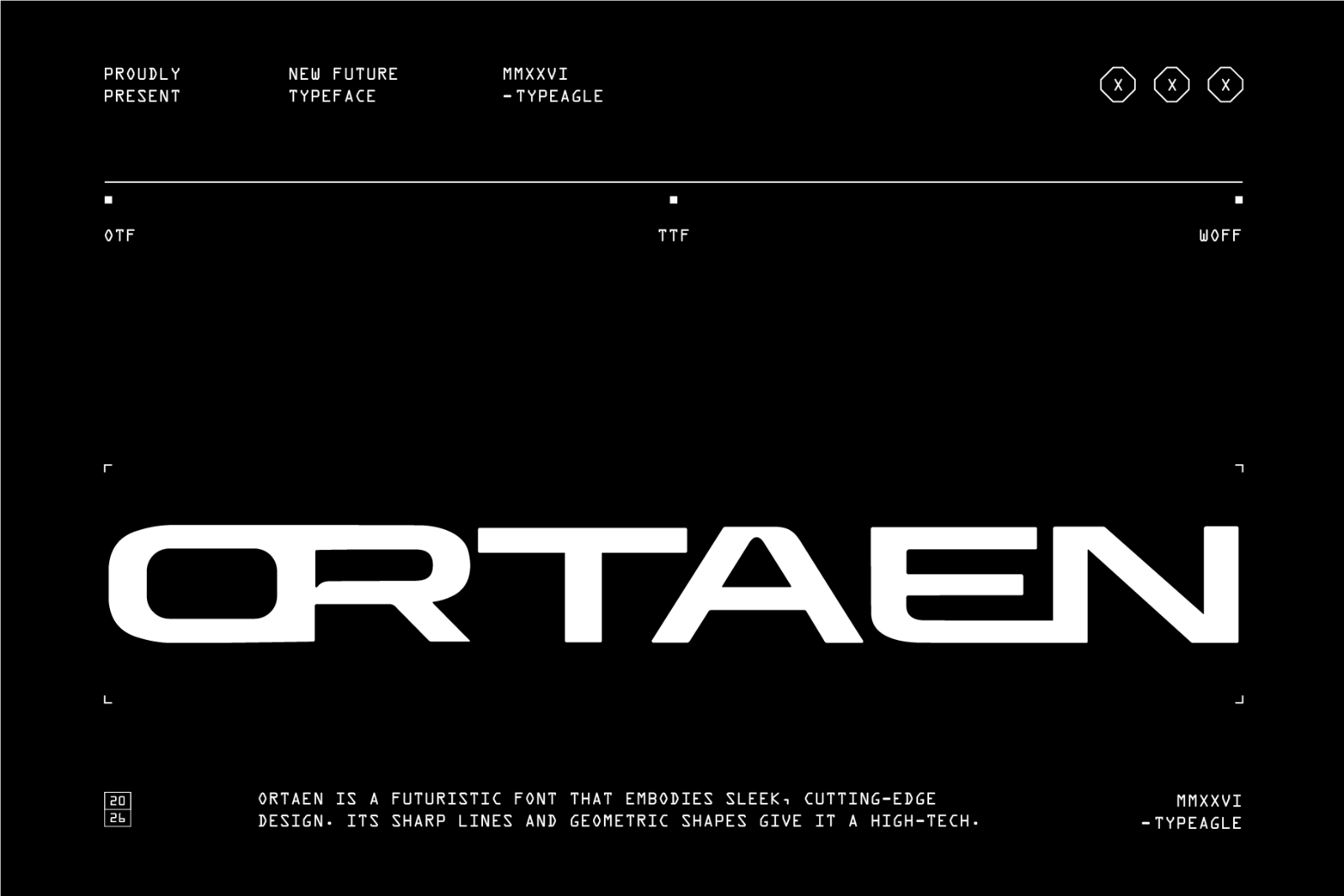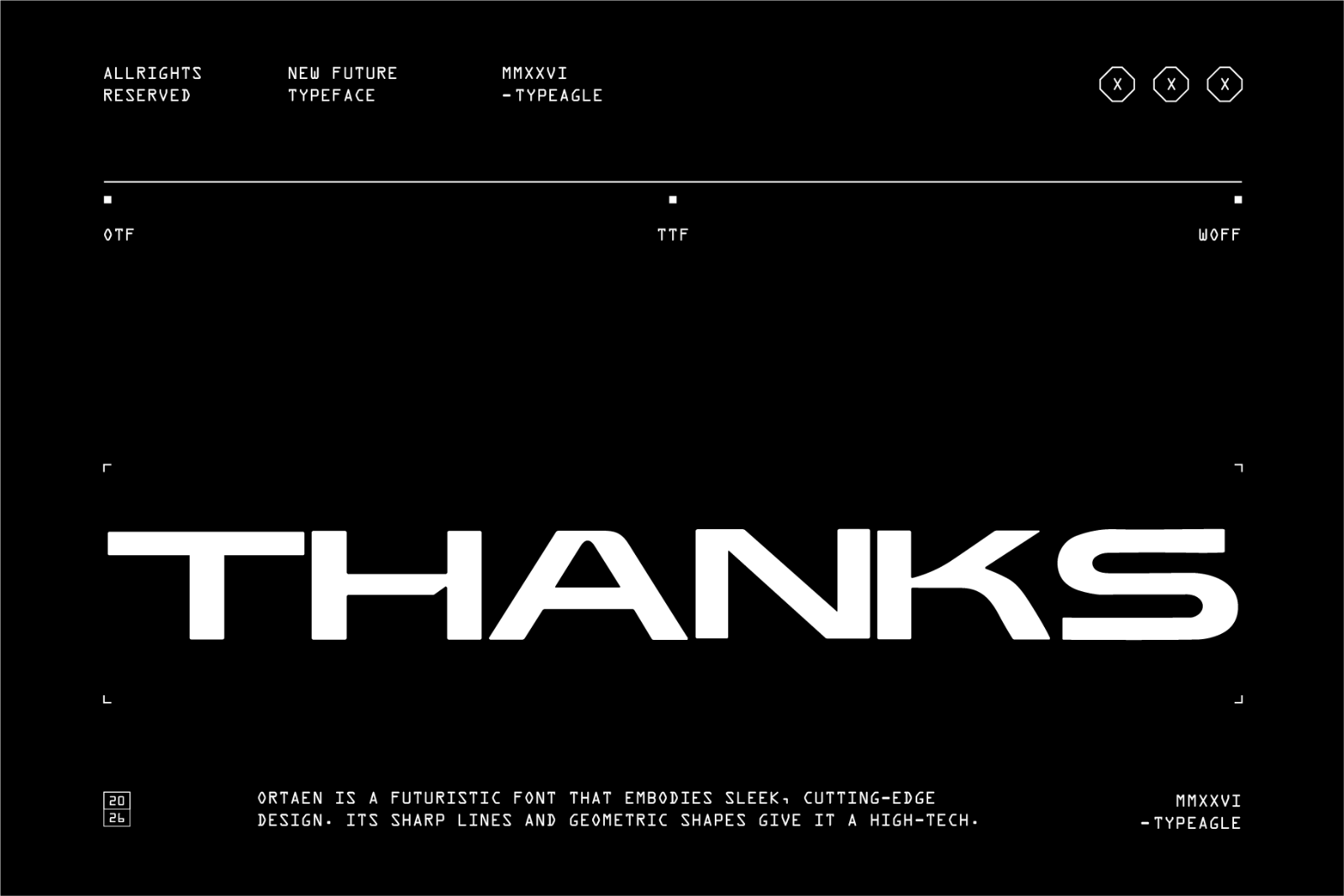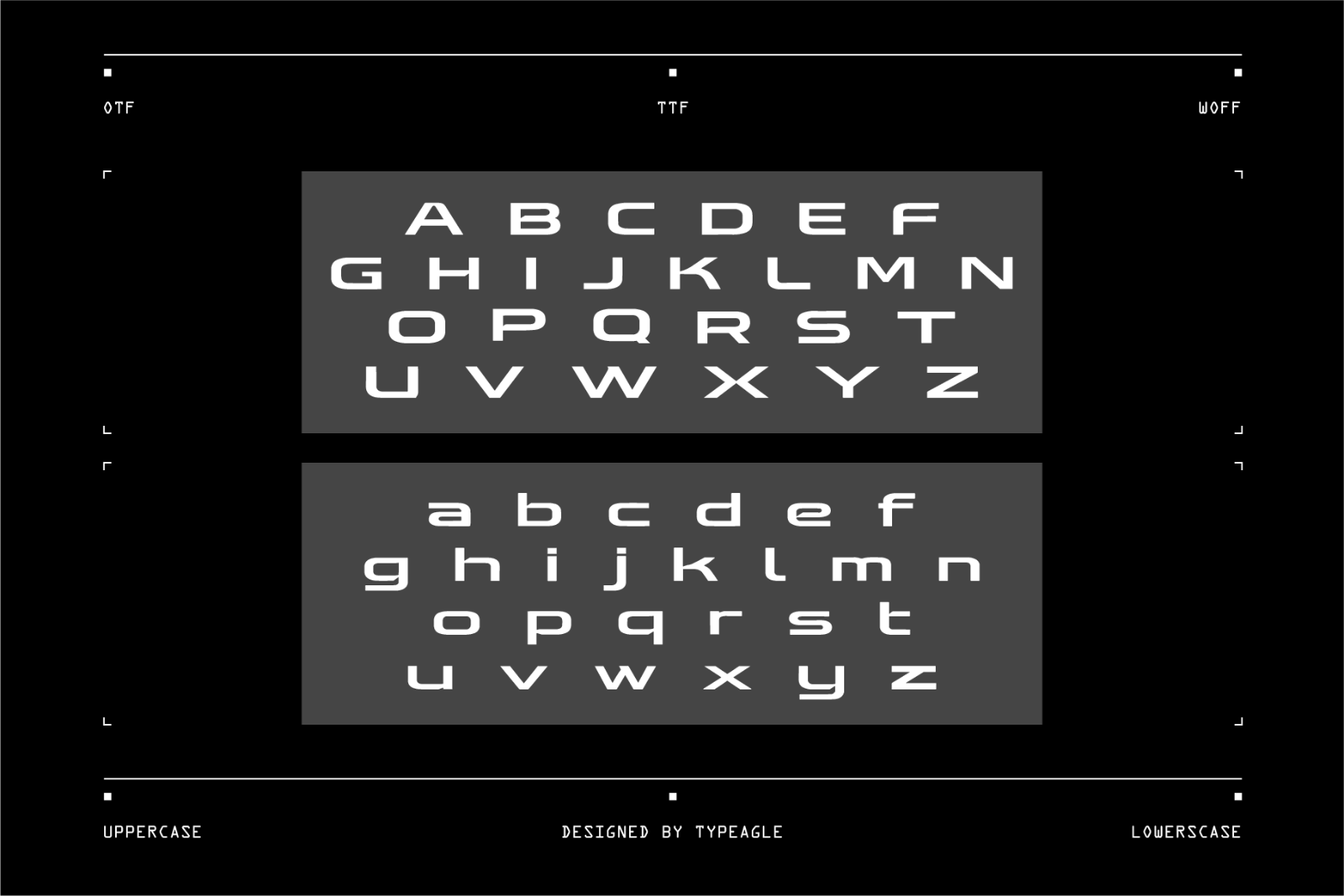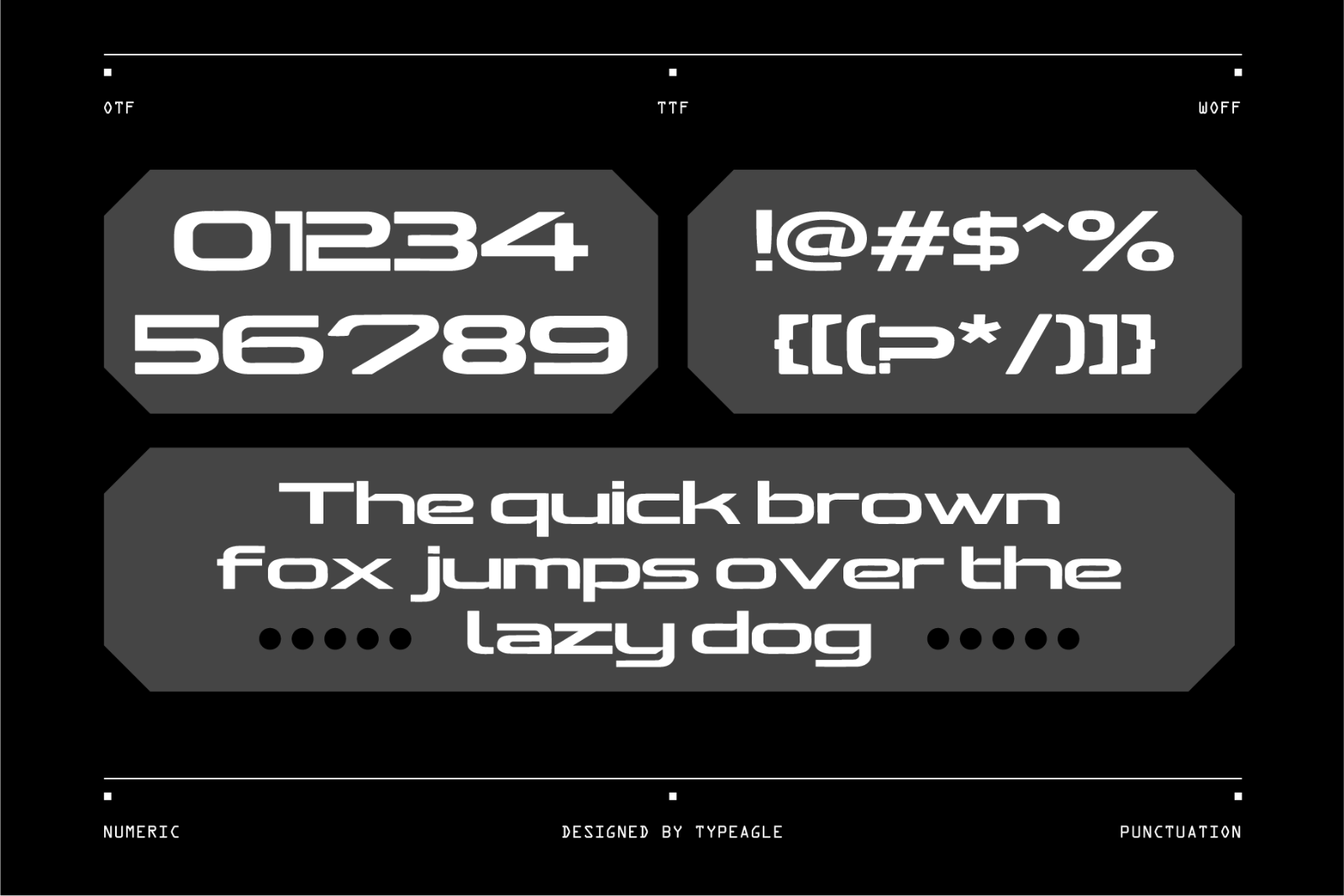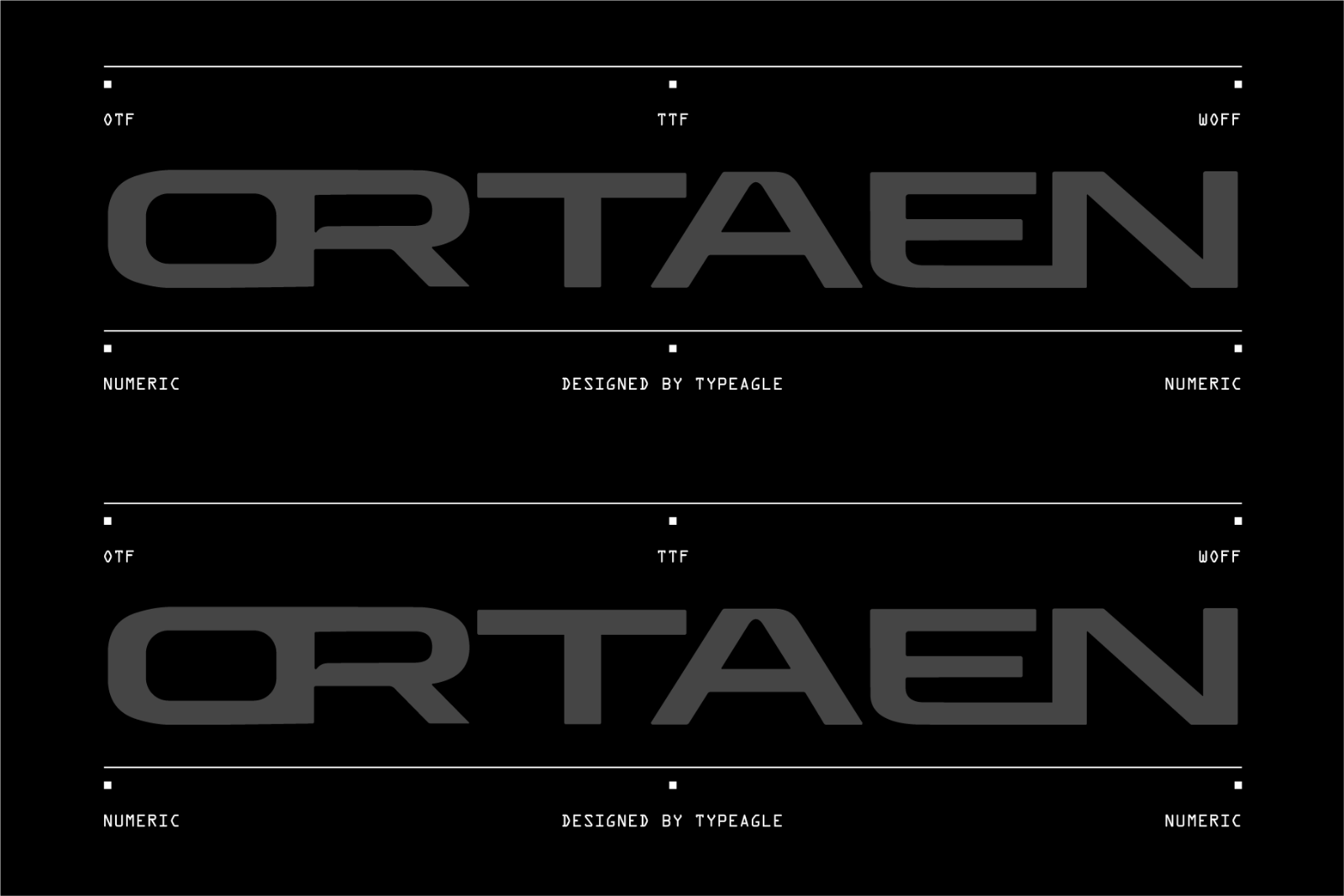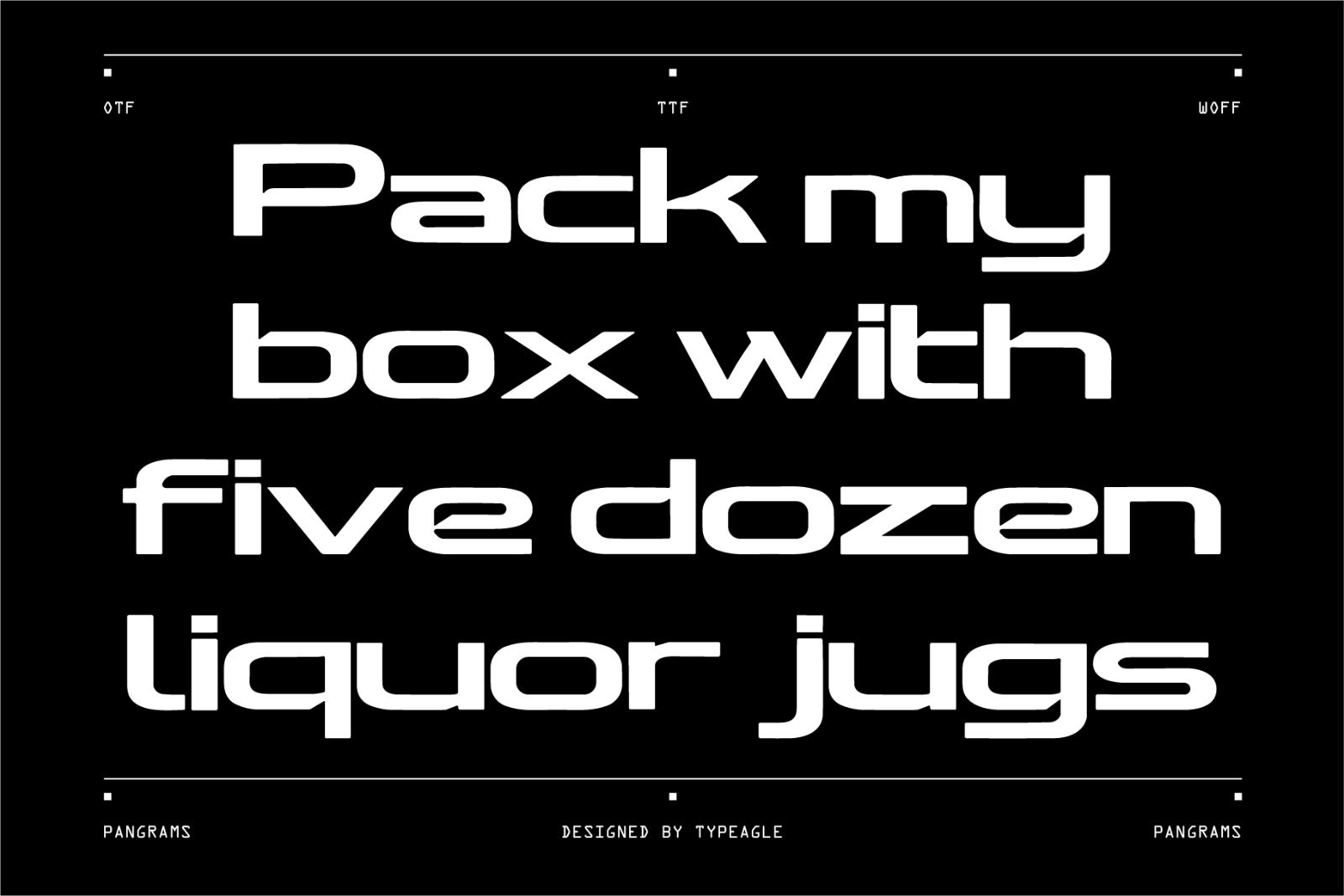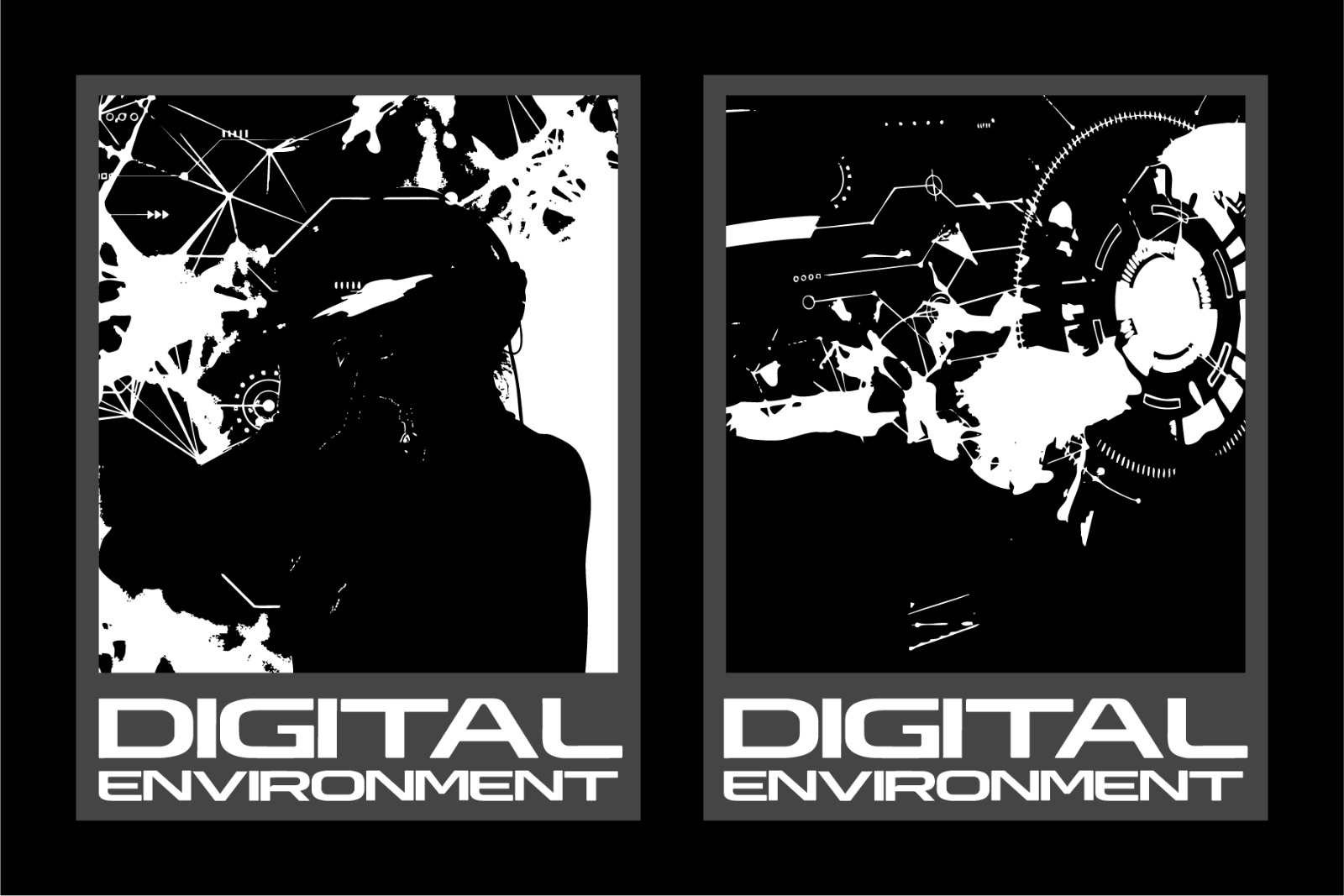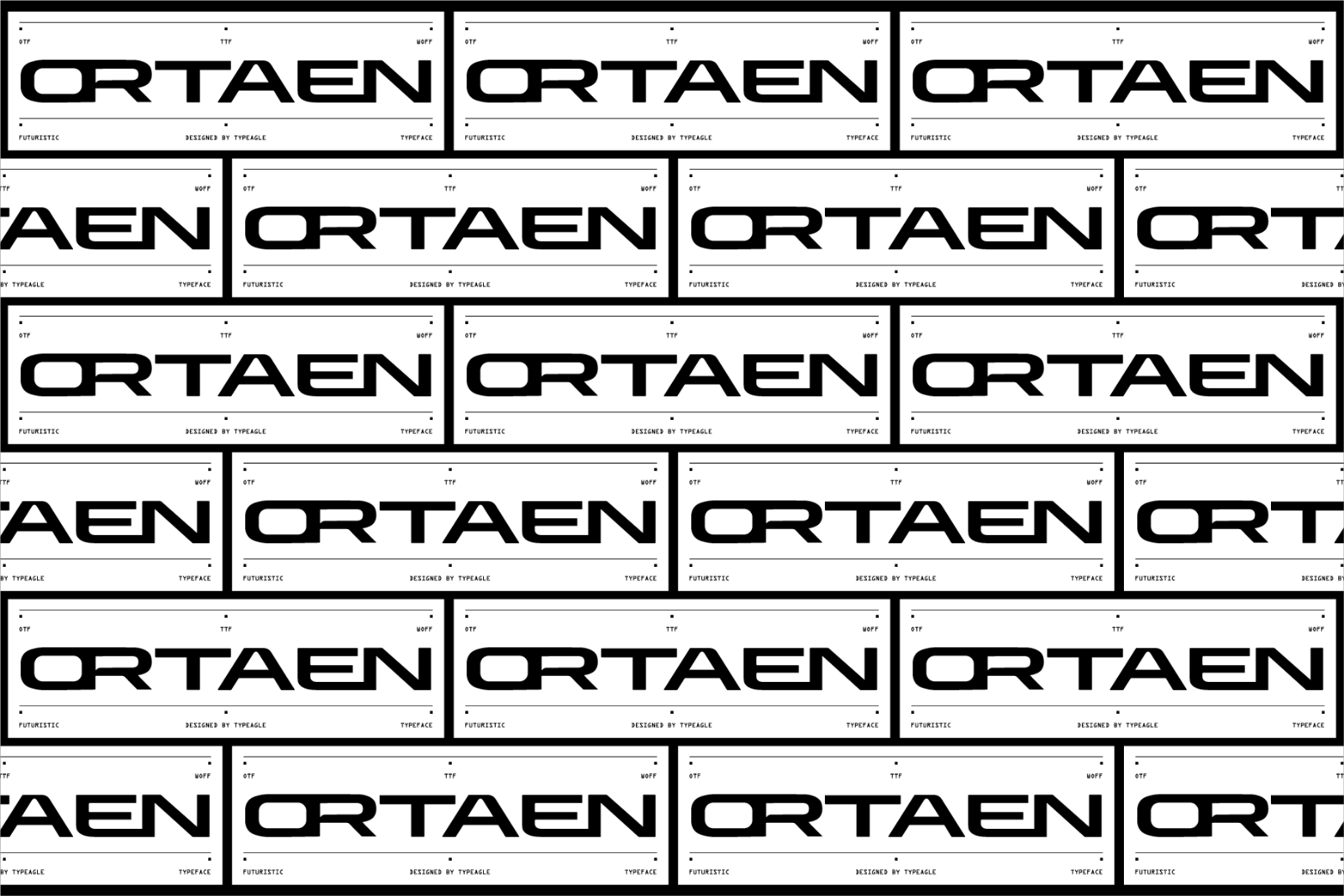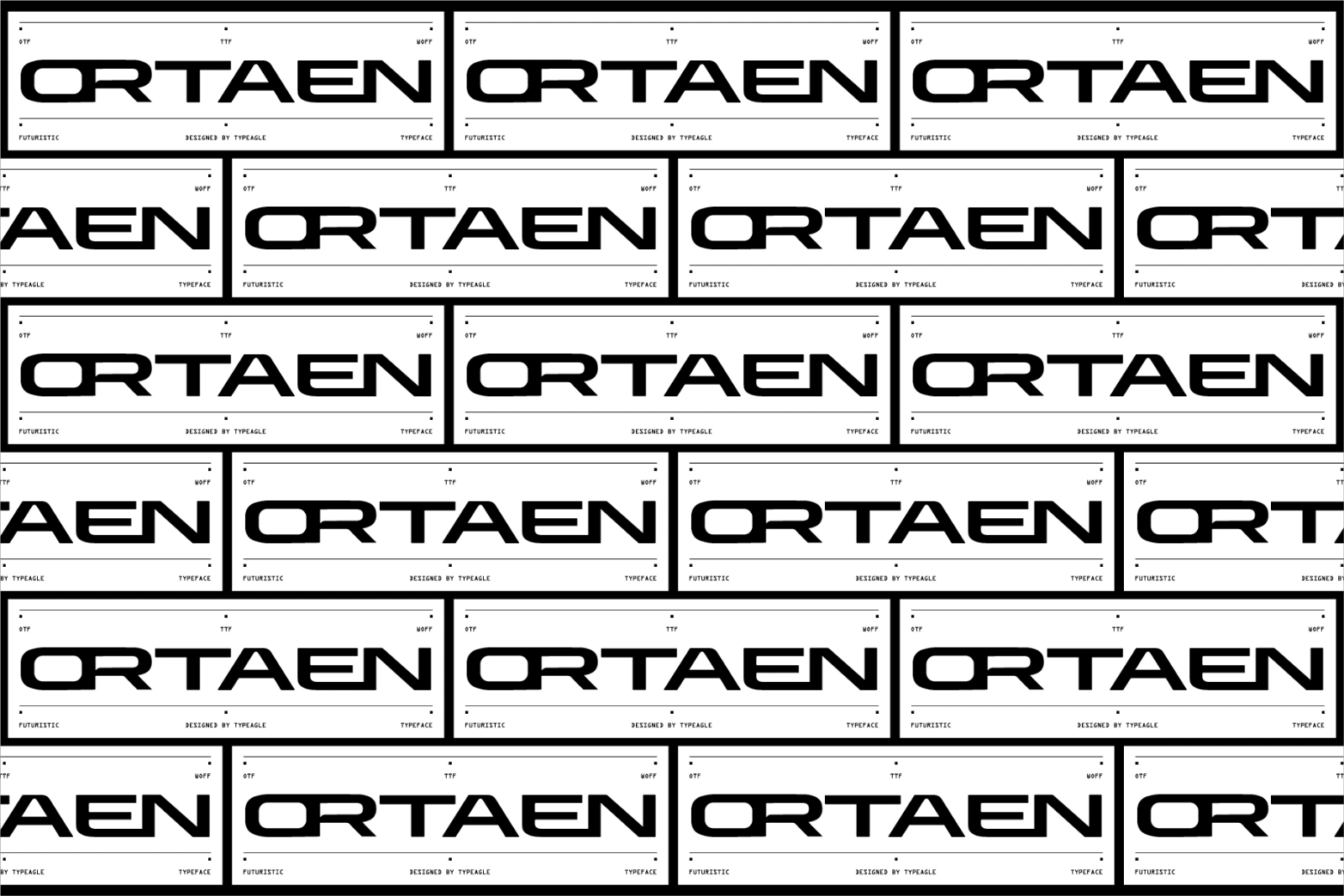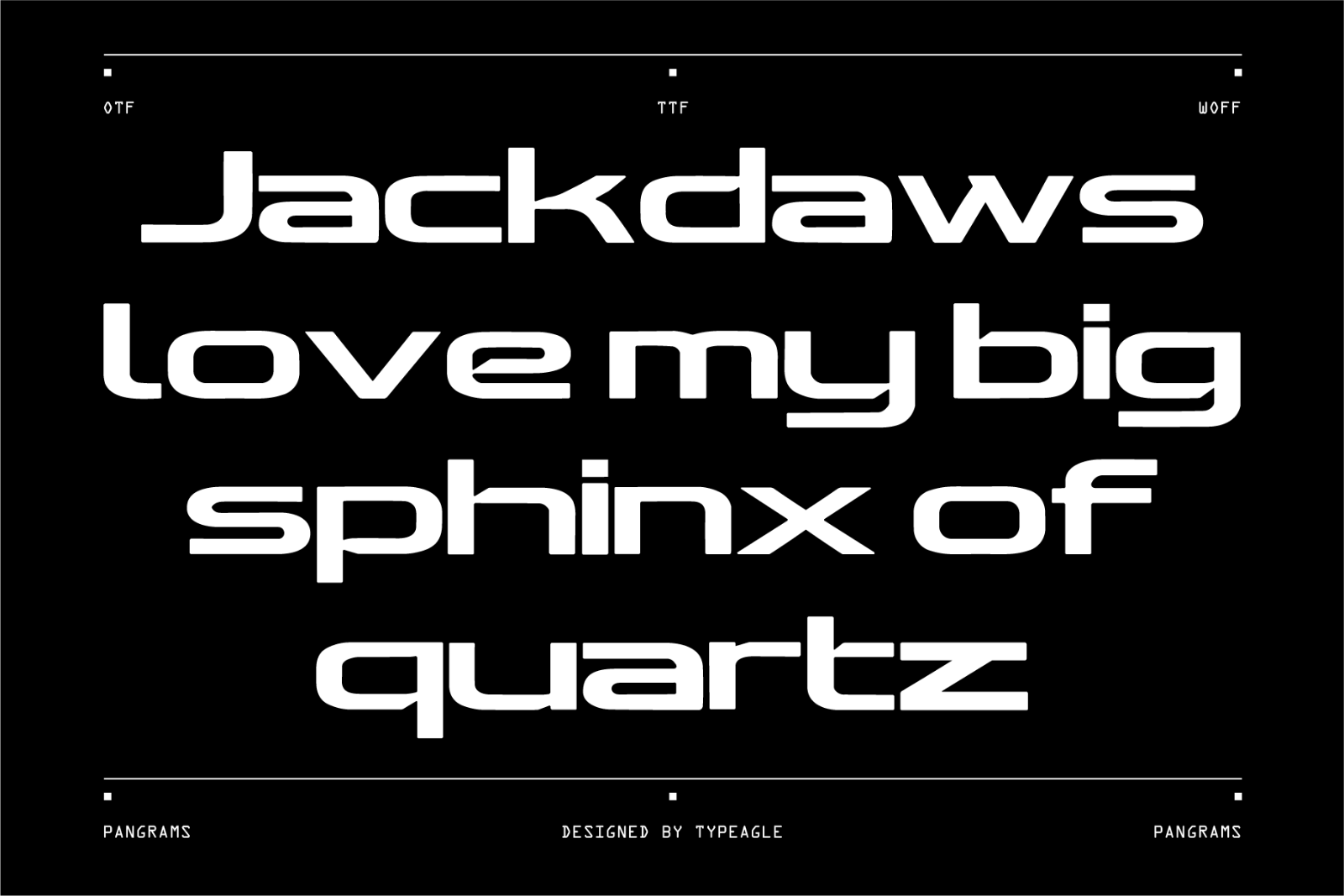
Ortaen is a futuristic font that embodies sleek, cutting-edge design. Its sharp lines and geometric shapes give it a high-tech, modern feel, making it perfect for projects focused on innovation, technology, or the future. The font's clean and minimalistic style ensures readability while exuding a sense of forward-thinking and progress. Ortaen is ideal for designs that aim to convey a sense of sophistication and advanced modernity.